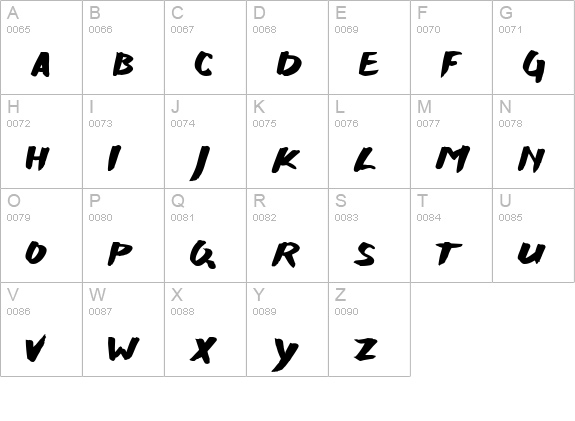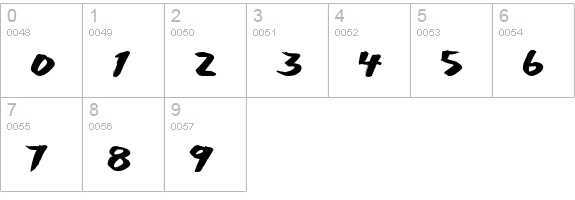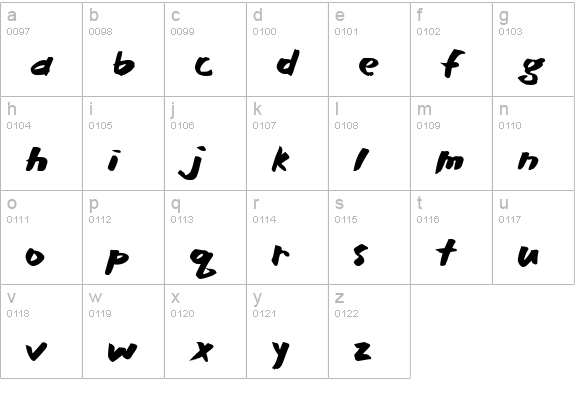
CK Broad Pen Font Details
The CK Broad Pen font is a beautifully designed typeface that exudes elegance and sophistication. With its bold strokes and fluid lines, this font is perfect for adding a touch of style to any project. Whether you're creating invitations, posters, or branding materials, CK Broad Pen will make your text stand out and captivate your audience. What's even better is that CK Broad Pen is available for free download at FontsMarket.com. You can easily access this stunning font and use it in your projects without any cost. So why wait? Enhance your designs with the luxurious CK Broad Pen font today!